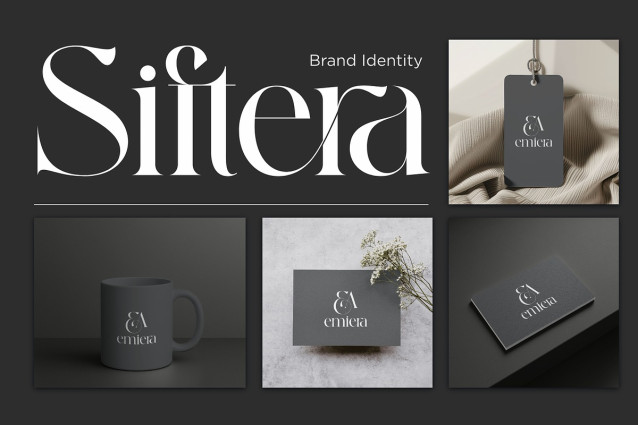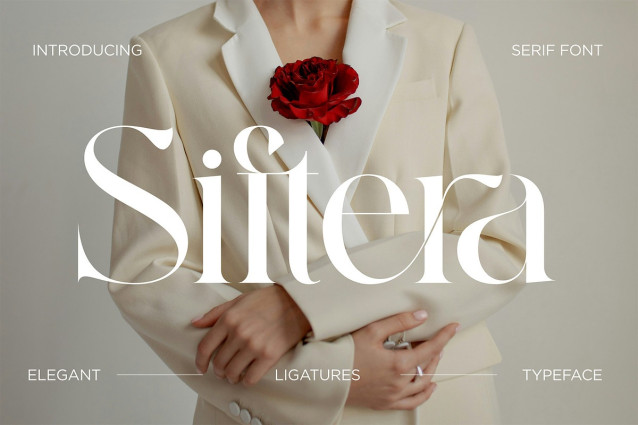
Siftera Font
Siftera Font is a contemporary serif designed with gentle sophistication. Merging classic serif structure with warm, rounded terminals and low stroke contrast, it conveys both formality and approachability—perfect for creating soft, elegant designs.